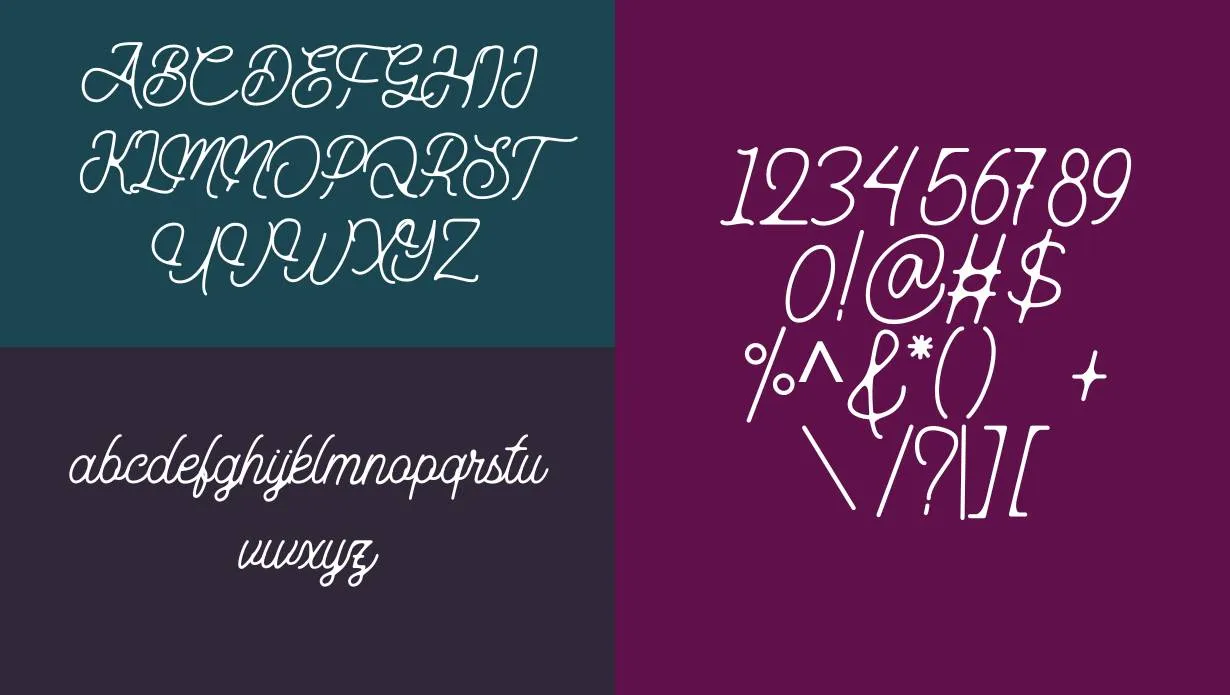
Aurelig Vintage Script Font is a very attractive script-type font. This modern retro-like font was designed by Candra Vultype. The look of this typeface is very classy. You can make amazing website designs and graphic designs as well by using this font. It can be used in Adobe Photoshop, CSS, Canva, and MS Word for many projects.
It has 285 characters, 257 glyphs, and 1000 units per Em. The weight of this font is light and its width is medium(normal). The writing style followed by this font is Italic. Unicode supported 2.0 and BMP only.